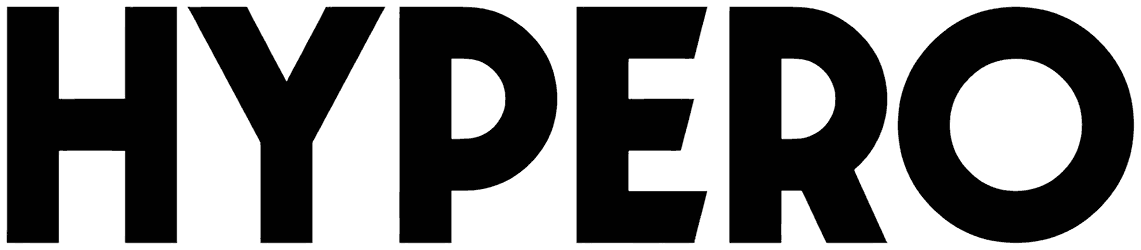
Futurette Font
If you need a modern, modest, and matchable font to decorate your coming layout, this sans serif font would be a professional choice. Futurette, with its unique lettering, is a chic pickup for any title. This item covers almost all characters in versions, which means you can count on it for countless designs, namely postcards, invitations, magazines, and so forth.
Inspired by futuristic types from the late 70’s and early 80’s (like Handel Gothic, ITC Bolt, or more recently Typodermic’s Conthrax family) **Futurette FF** will sied pretty well for sport, synthwave and so on artworks.
Each one comes with more than 400 glyphes, and can be used for text as well as a display with its large choice of weights.
It covers most western latin languages with many diacritics and has a set of ligatures
Designed by: Jvne77 Studio